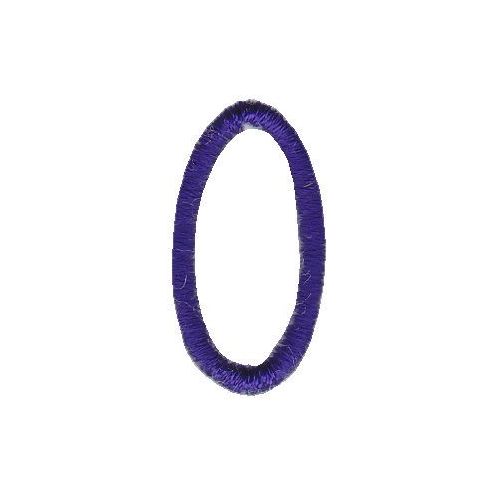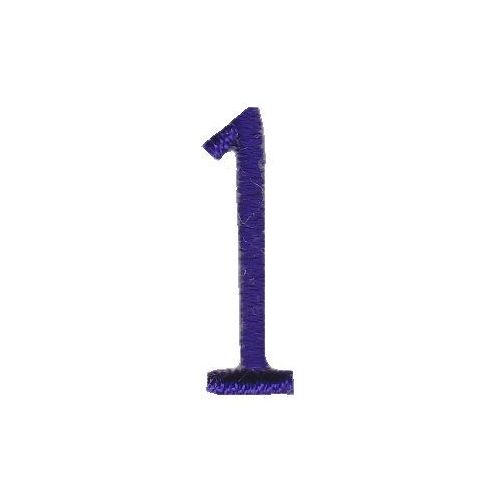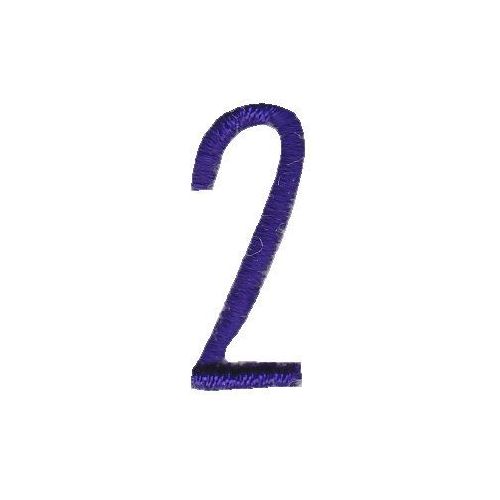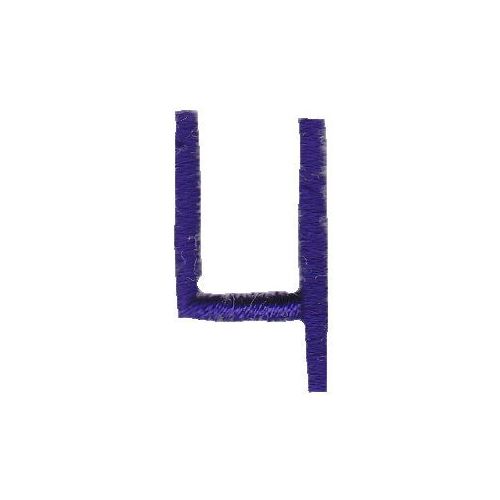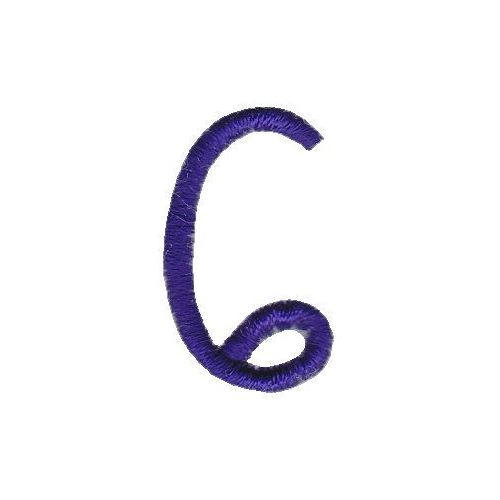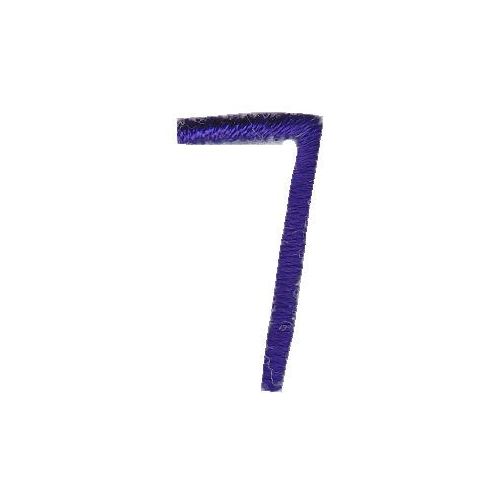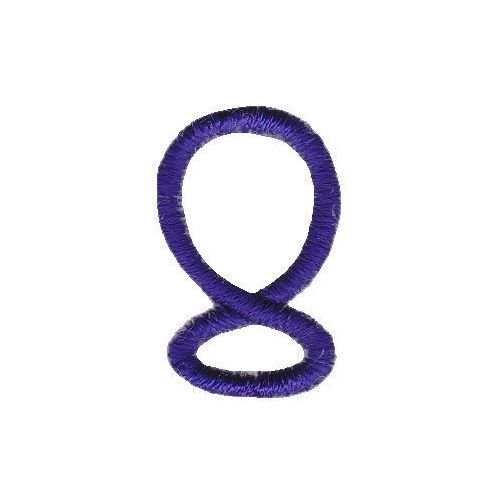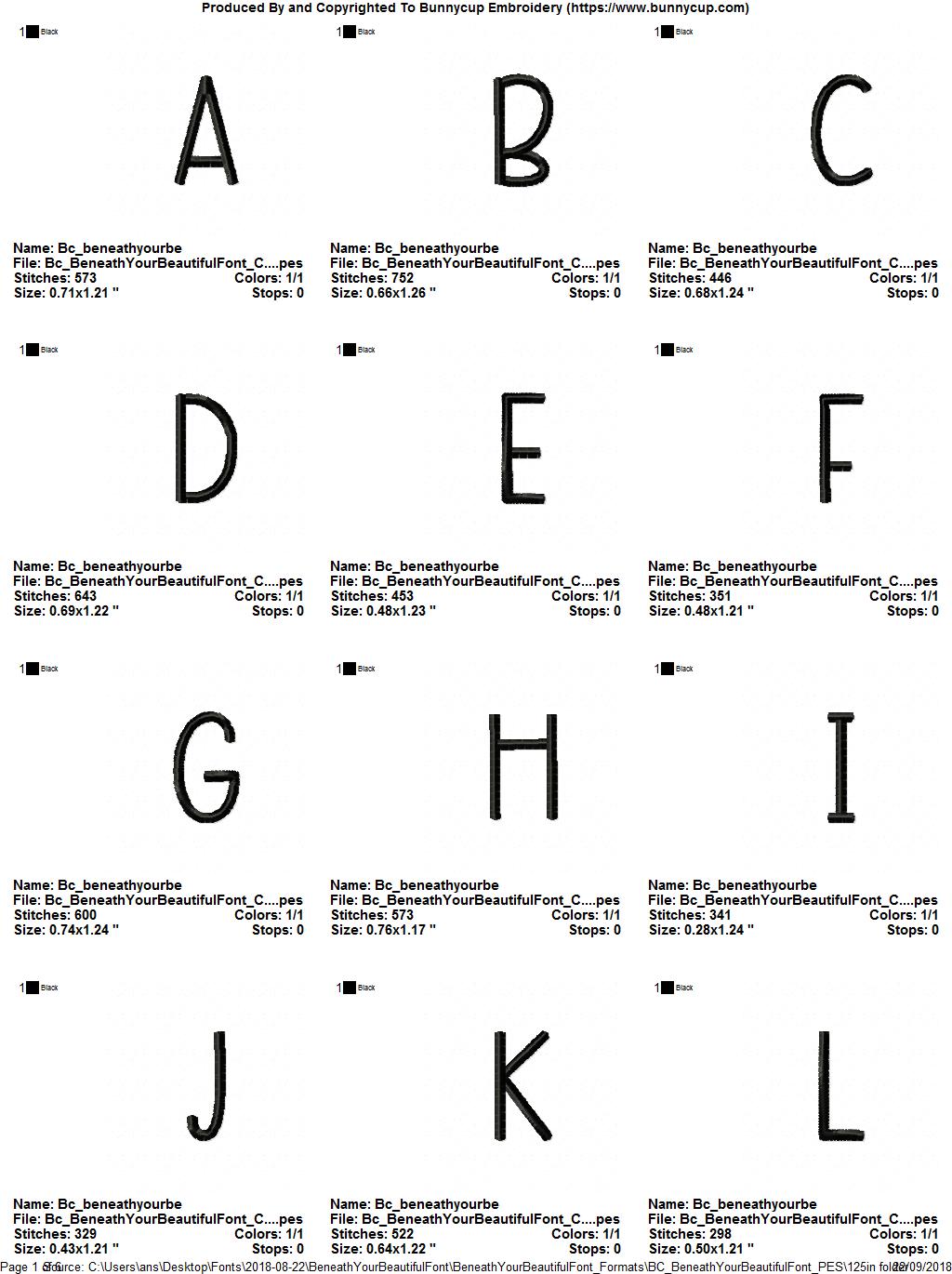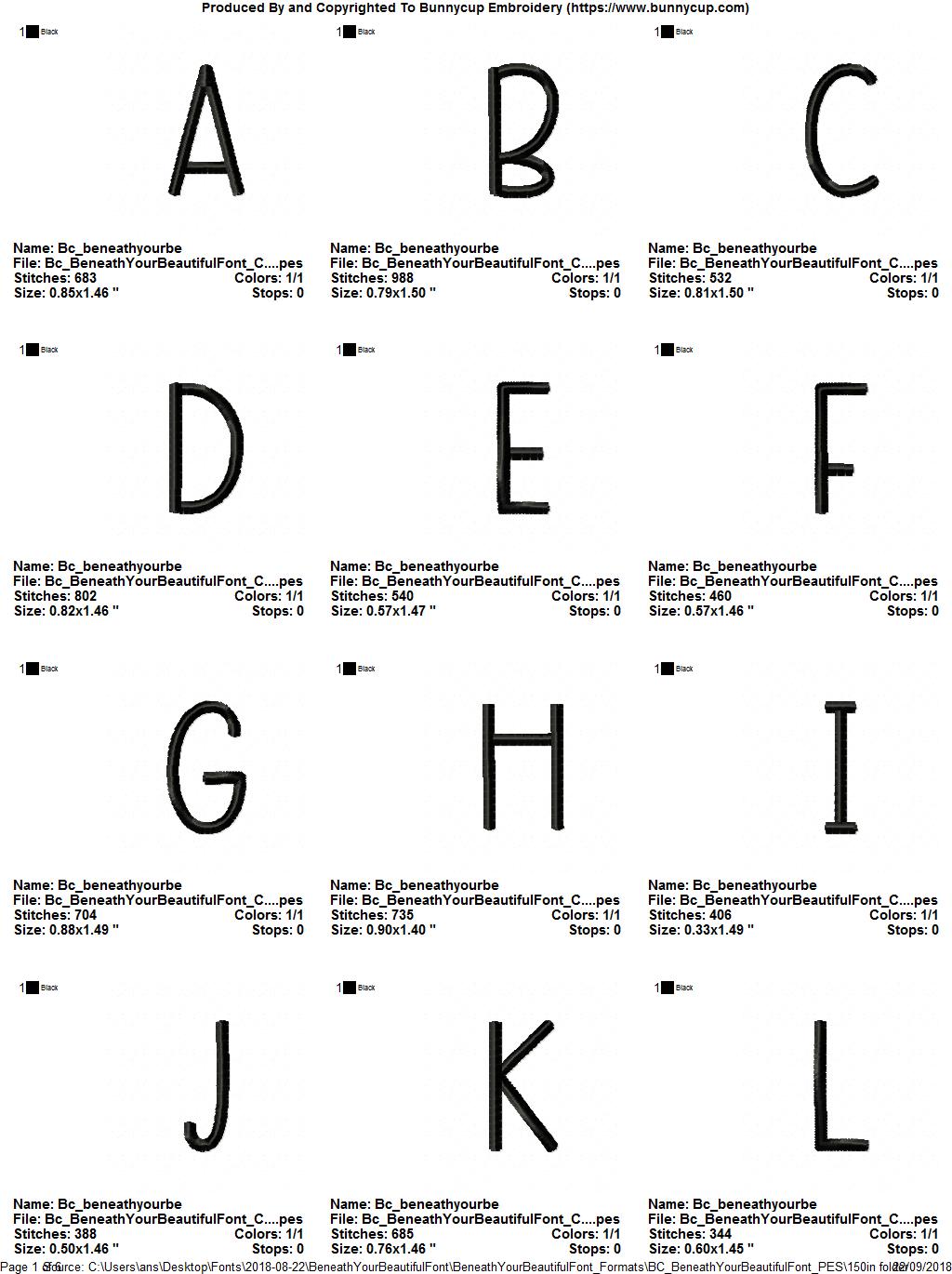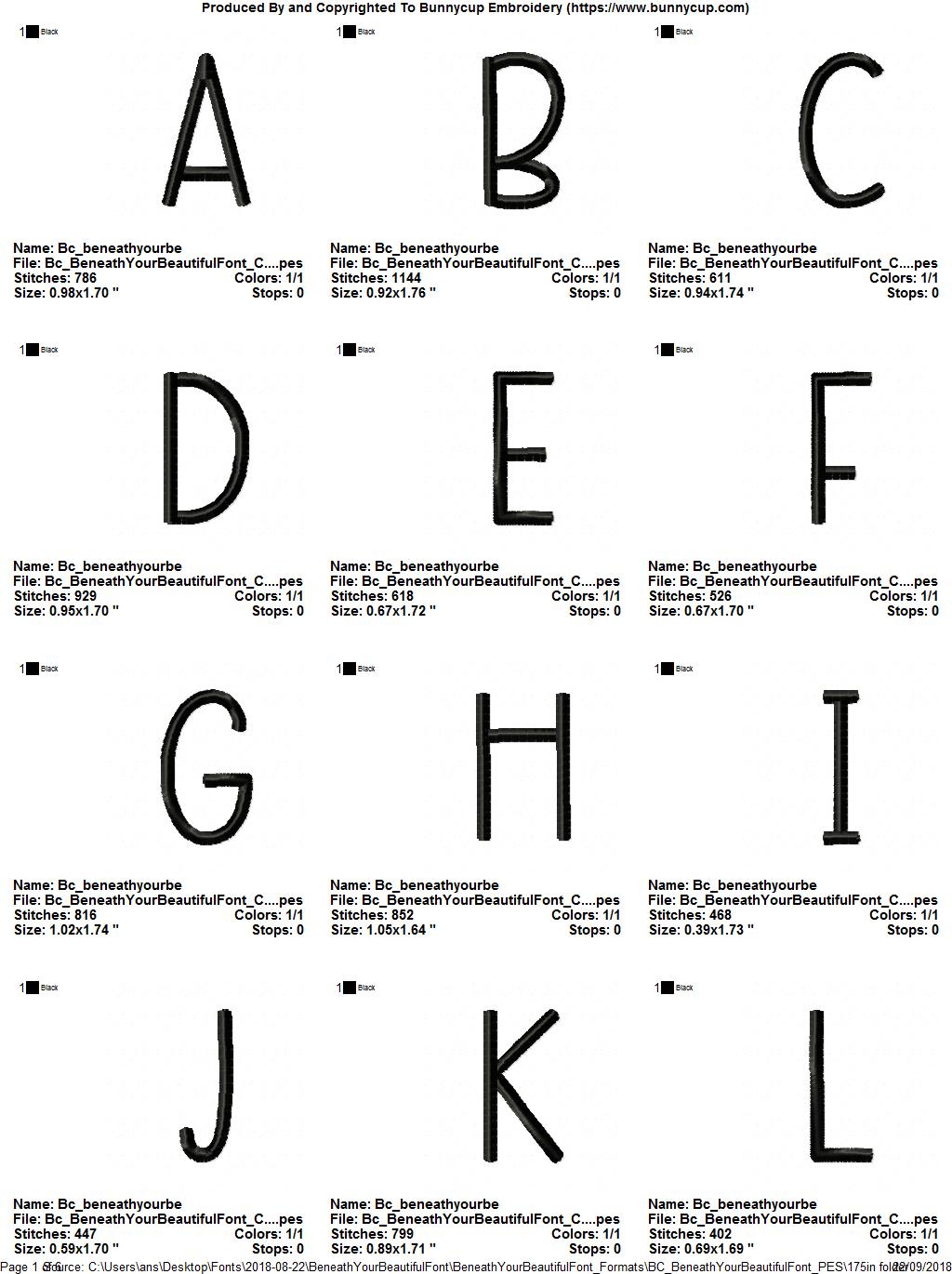
Beneath Your Beautiful Font
Beneath Your Beautiful Font is a cute embroidery font that comes in 5 great sizes - 1 Inch, 1.25 Inches, 1.5 Inches, 1.75 Inches and 2 Inches. The font includes Capitals, Lower Case and Numbers as displayed. BX files are also included for use with the Embrilliance software when purchasing the full alphabet set. Just choose your machine format, and the BX files will be included with your machine format files. See our full range of